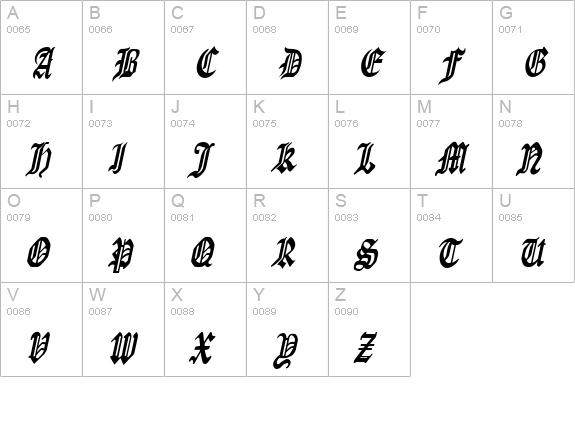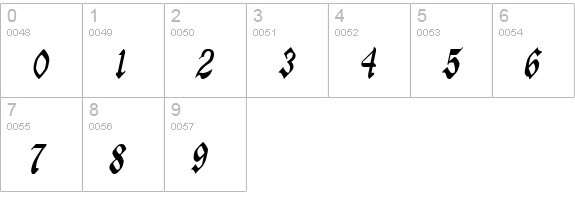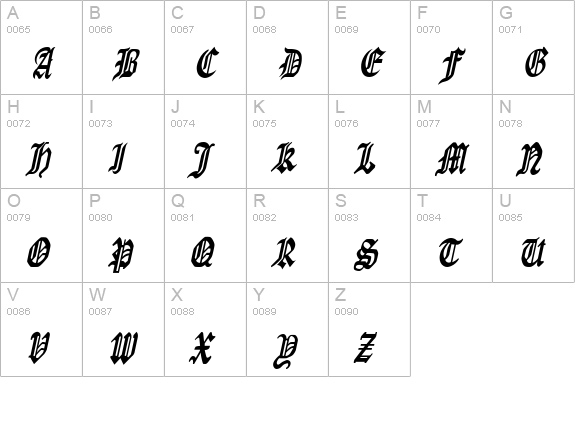
ManuscriptCondensed Italic Font Details
ManuscriptCondensed Italic is a distinctive, italic variant in the ManuscriptCondensed typeface family \xE2\x80\x94 well suited to design and typography projects.
Introducing ManuscriptCondensed Italic, a stunning and sophisticated font that captures the essence of elegance and grace. This exquisite typeface, with its delicate slant and condensed design, adds a touch of refinement to any project it graces. ManuscriptCondensed Italic is the epitome of timeless beauty, combining the fluidity of handwritten script with the sleekness of a condensed font. Its graceful curves and carefully crafted letterforms create a harmonious balance that is both pleasing to the eye and pleasing to read. This font is perfect for a wide range of applications, from wedding invitations and event posters to luxury branding and editorial design. Its versatility allows it to effortlessly complement any design concept, adding a touch of sophistication and class. One of the best aspects of ManuscriptCondensed Italic is that it is freely available to download at FontsMarket.com. This means that you can enhance your projects with this stunning font without worrying about any additional costs. Whether you're a professional designer or a creative enthusiast, this font provides you with the freedom to express your creativity without limitations. With ManuscriptCondensed Italic, you can elevate your designs to new heights, creating a lasting impression on your audience. Its timeless beauty, combined with its availability as a free download, makes it a truly invaluable asset for any designer. Experience the beauty and elegance of ManuscriptCondensed Italic today, and discover the freedom of creating stunning designs that leave a lasting impact. Download this exquisite font from FontsMarket.com and unlock a world of possibilities for your next project.